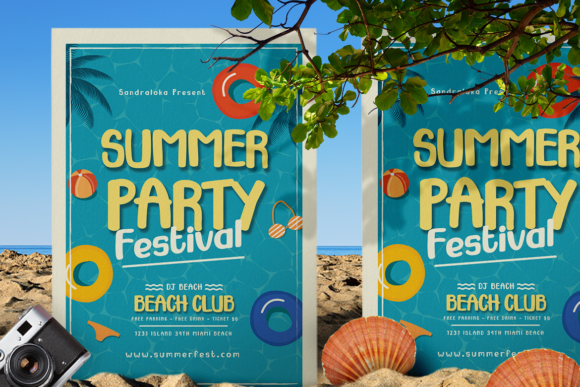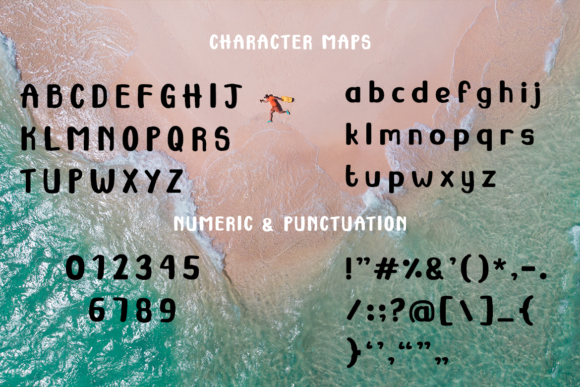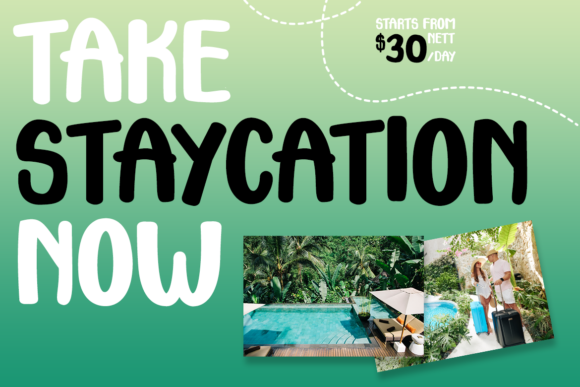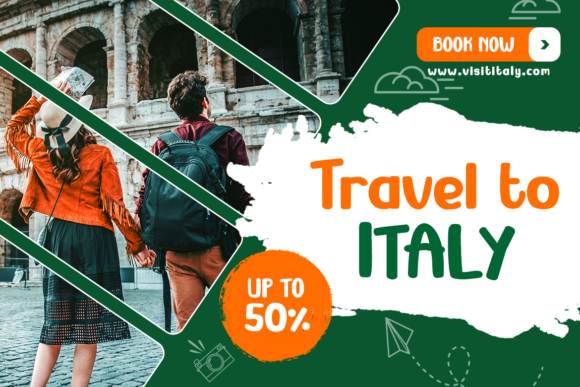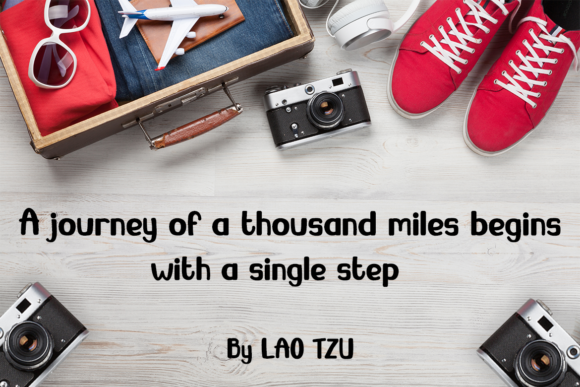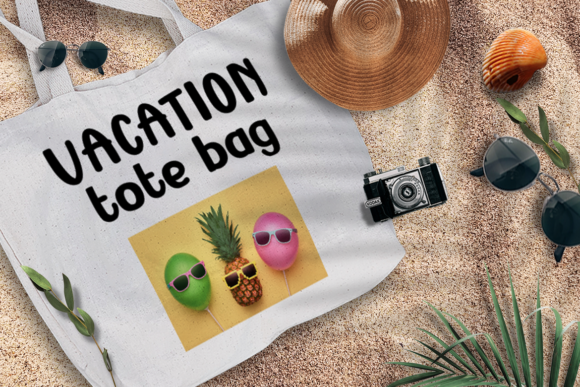
Introduction to Sandraloka Font
Have you ever been brainstorming ideas for a children’s birthday party or a school project, only to find yourself stuck in a sea of bland and uninspiring fonts? It’s a common problem many designers face, but what if you could break free from that creative rut with the perfect design resource? Enter the Sandraloka Font, a cool, casual, and friendly display font that’s sure to add a touch of whimsy to your next project.
This versatile font is more than just a pretty face – it’s a high-quality design asset that can be used in a variety of creative projects, from invitations and party decorations to educational materials and presentations. And the best part? It’s free to download, making it an accessible resource for designers of all levels.
- Unique Sans-Serif Design: The Sandraloka Font boasts a modern and sleek sans-serif design, perfect for creative projects that require a clean and minimalistic aesthetic.
- High-Quality Typography: With its transparent background and high-quality typography, the Sandraloka Font is an excellent design resource for any creative project.
Honest Review: Sandraloka Font
I recently stumbled upon the Sandraloka Font while searching for a free download for my latest design project. As a designer, I’m always on the lookout for high-quality fonts that can add a unique touch to my creative work.
- What works well: ✨ The Sandraloka Font has a beautiful, elegant design that’s perfect for titles and headings. The font is highly legible, even at smaller sizes, making it an excellent choice for digital projects.
- What works well: ✨ The font is also highly customizable, allowing me to adjust the transparency of the background to fit my design needs.
However, I did encounter a few limitations while using the Sandraloka Font:
- ⚠️ Limited character set: The font only includes a limited set of characters, which can make it difficult to use for projects that require a wide range of languages or special characters.
- ⚠️ Not suitable for print: The font is designed for digital use and may not be the best choice for print projects due to its transparent background.
Overall, I’m impressed with the Sandraloka Font, but it’s essential to consider its limitations before adding it to your design resource library. It’s a great choice for digital projects, but may not be the best fit for print or projects requiring a wide character set.
The Sandraloka Font is a high-quality design resource perfect for any creative project. It offers a unique and stylish look with a transparent background, making it ideal for use in a variety of applications.
To get the most out of the Sandraloka Font, try experimenting with different font sizes, colors, and styles to create a unique and eye-catching design.